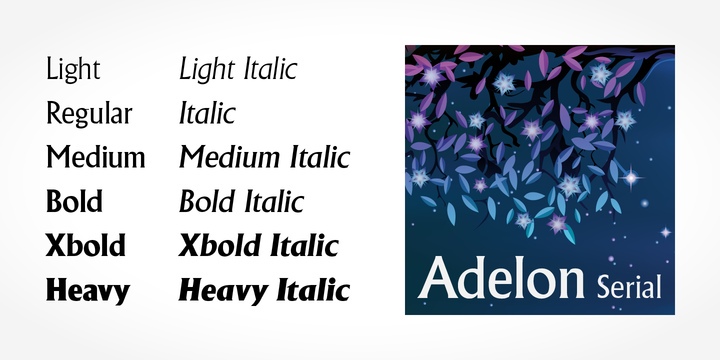
Adelon Serial Font
Adelon Serial Font is perfect for systematic tech companies, serialized production firms, methodical manufacturing organizations, sequential process consultants, organized data management services, and systematic workflow optimization platforms. Its structured character makes it ideal for serial number tracking systems, production line companies, systematic quality control services, sequential training programs, methodical research institutions, and any project requiring systematic precision with organized efficiency and methodical excellence appeal.
This font is exciting because it embodies the power of systematic organization and methodical precision while delivering exceptional functionality for organizations that value structured processes, sequential excellence, and the reliability that comes from systematic approaches to business and technology. The methodically crafted letterforms reflect the importance of order, sequence, and systematic thinking in achieving consistent results and operational excellence.
The Adelon Serial Font family typically includes Light, Regular, Medium, and Bold weights with systematic alternates, sequential ligatures, and organizational elements that enhance its methodical personality. This comprehensive collection enables systematic professionals to create authoritative brand systems that maintain procedural credibility while offering flexibility for various organizational applications requiring both structural authority and contemporary business positioning.
Whether you're developing identity systems for systematic technology companies, creating materials for methodical process improvement programs, or designing promotional content for organizational efficiency services, Adelon Serial Font Free Download delivers the systematic precision and methodical appeal that resonates with business audiences seeking structured solutions and reliable processes. Its organized presence ensures professional brand recognition across digital platforms and print materials, making it perfect for websites, mobile applications, and systematic campaigns that celebrate methodical excellence, organizational efficiency, and the transformative power of structured approaches with contemporary business standards and authentic systematic authority.